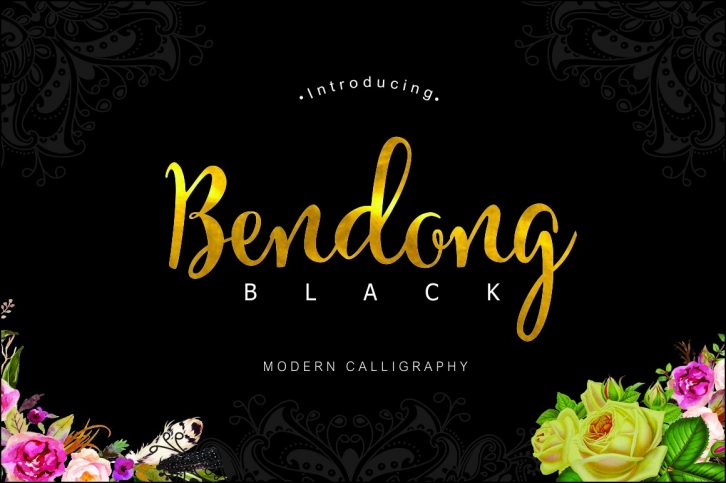
Bendong Black - a new fresh & modern script with a handmade calligraphy style, decorative characters and a dancing baseline! So beautiful on invitation like greeting cards, branding materials, business cards, quotes, posters, and more!